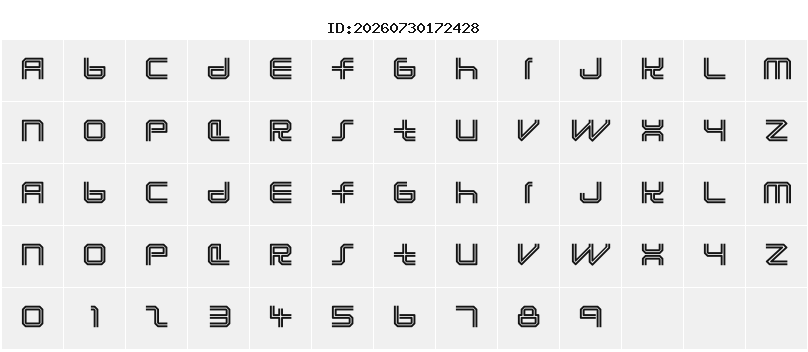
• Font Name: Lunasol
• Full Font Name: Lunasol
About Lunasol.ttf
Lunasol.ttf is a modern, elegant sans-serif font designed for ultimate readability and visual harmony. Perfect for branding, headlines, web design, and print materials.